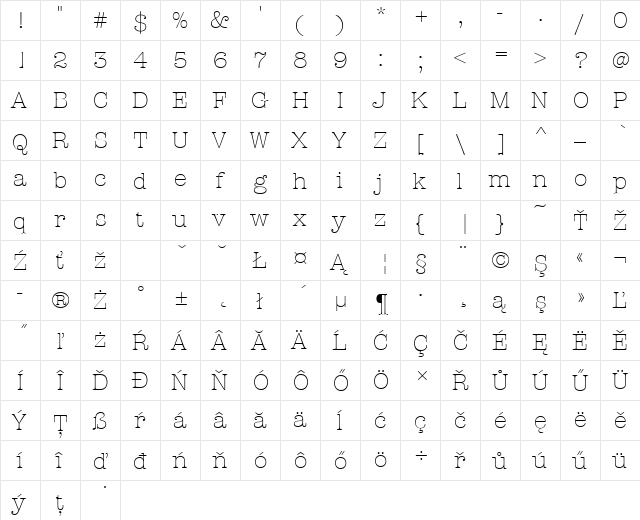
AmericanTypItcDEELig Regular
Design Context for AmericanTypItcDEELig Typeface
AmericanTypItcDEELig offers clean, dependable letterforms without strong stylistic allegiance, making it a practical choice for designers who need flexibility.